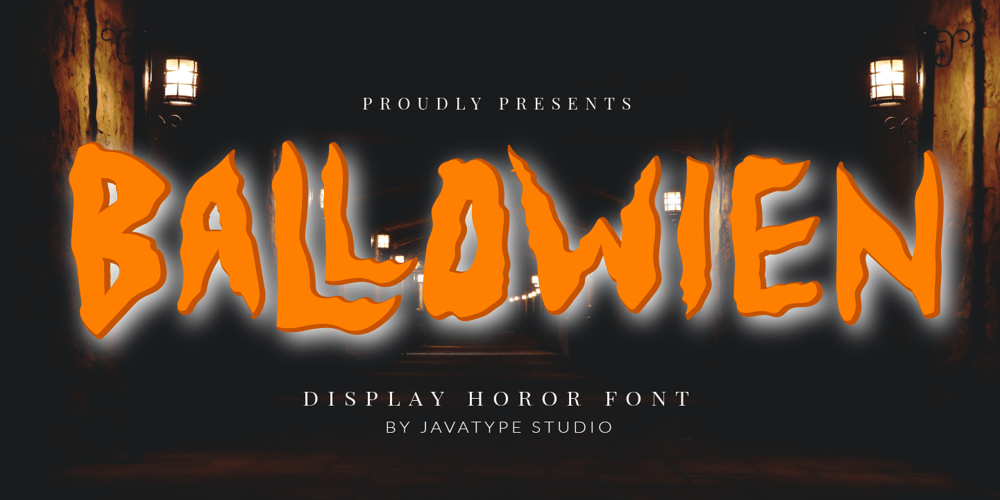
Ballowien
Ballowien font
Ballowien Font Family was designed by Tio Yulianto and published by Javatypestd. Ballowien contains 1 styles and family package options. Introducing Ballowien is Display Halloween Font. This font is beautifully crafted to meet your Halloween needs. has a scary character but also looks elegant and funny. Ballowien font perfect to a t-shirt, halloween day, card invitation, halloween party, quotes, etc. This font comes in uppercase, lowercase, punctuation, symbols, numerals, and unique ligatures.